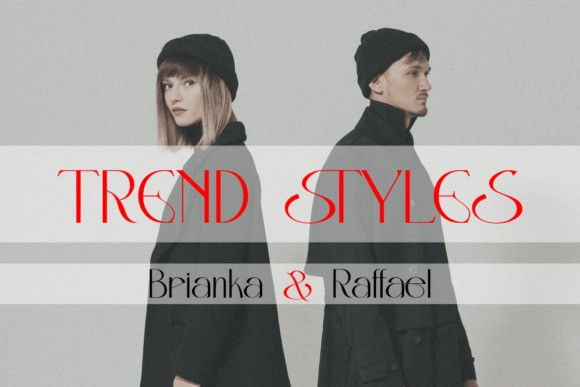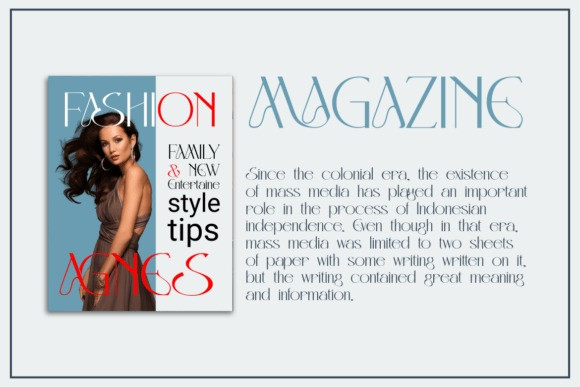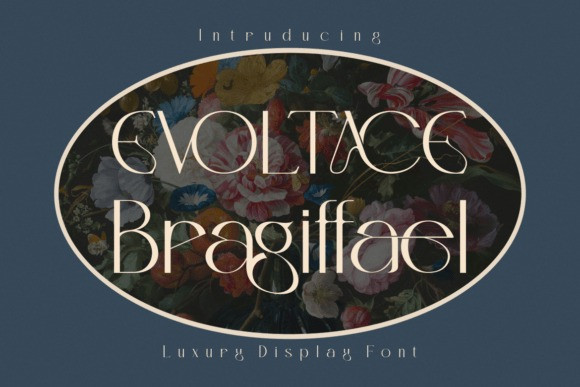
Evoltace Bragiffael Font
Evoltace Bragiffael Font is a high-class luxury display font that captures attention with its sophisticated, artistic letterforms and refined details. Ideal for logos, fashion branding, and event invitations, Evoltace embodies elegance and exclusivity. Its unique glyphs and alternative characters make every design feel curated and couture.